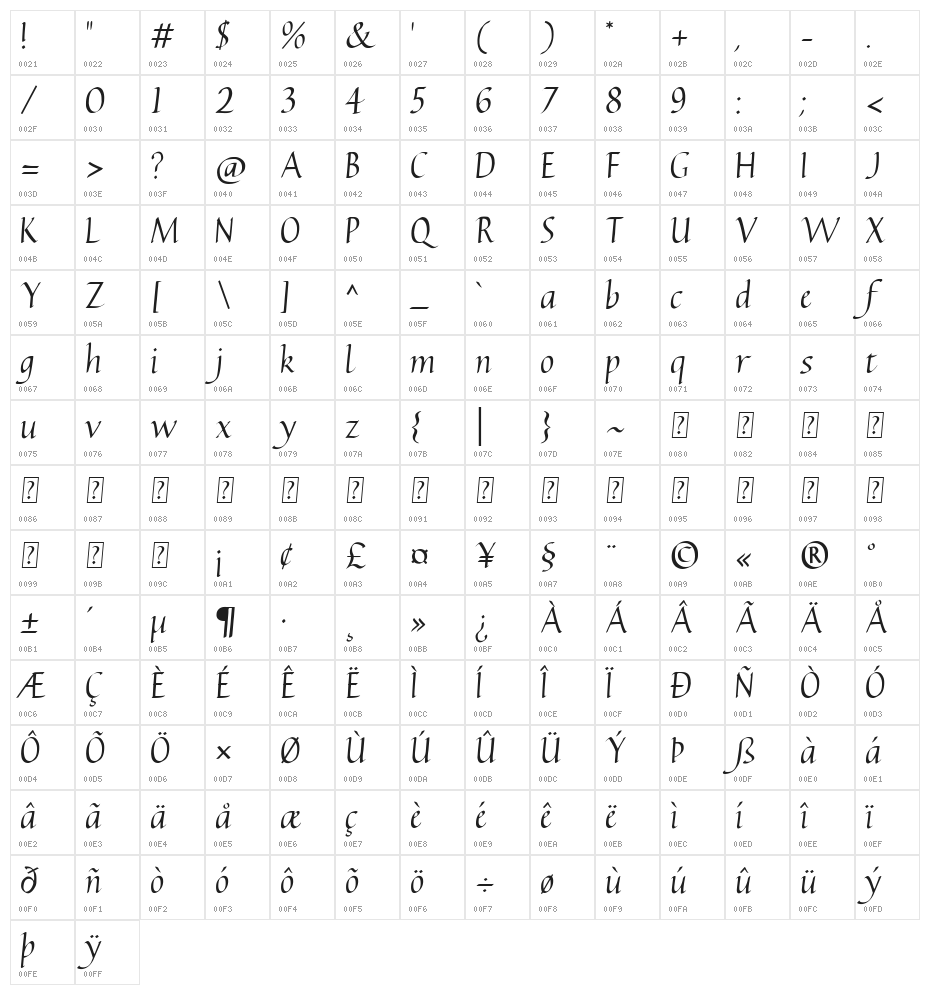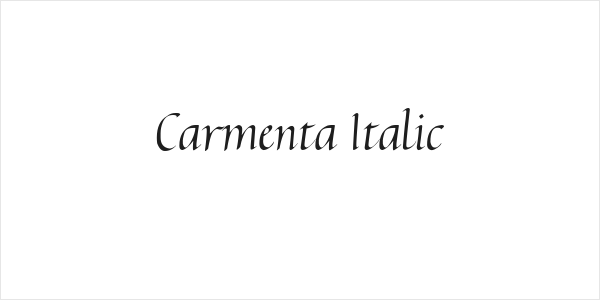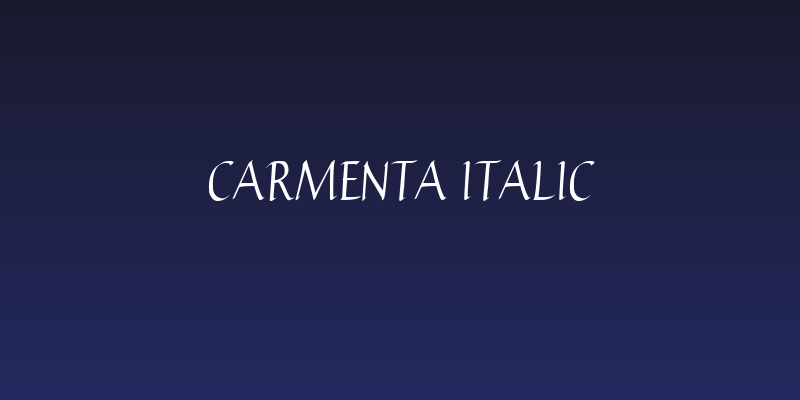
Carmenta Italic Font
Carmenta Italic Description
This font features an elegant and flowing italic style, characterized by its smooth curves and slightly slanted letters. The uppercase letters are tall and slender, while the lowercase letters maintain a consistent flow, enhancing readability. The numerals are well-proportioned, and the special characters are distinct and stylish, adding a touch of sophistication. The overall design conveys a sense of grace and fluidity, making it suitable for projects that require a refined and artistic touch.
| Use Case | Headlines, Invitations, Artistic projects |
| Proposed Projects | Ideal for wedding invitations, elegant branding, artistic posters, and sophisticated editorial design. |